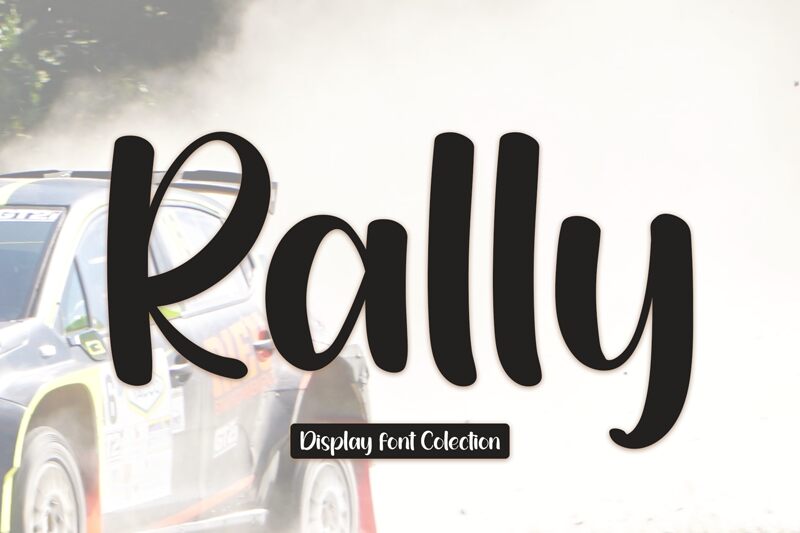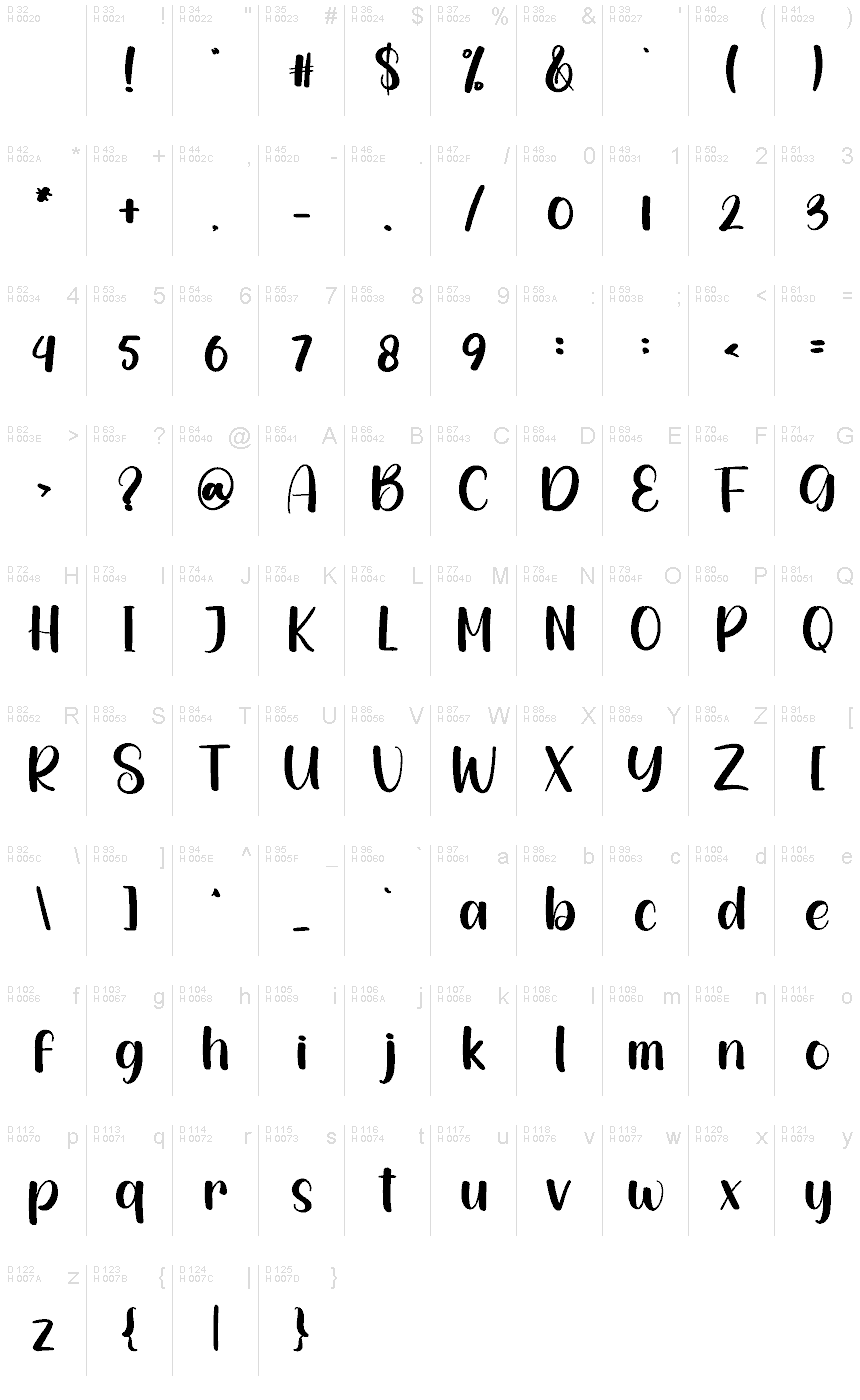
Rally
Bring out your inner activist with Rally, a spirited brush font available in OTF format thanks to Creatype. It stands out thanks to its bold characters, wide font width and fluid lines that add a relaxed yet enthusiastic vibe to any design. Take a stand for your convictions and use Rally for logos, labels, book and album titles, posters, packaging and more!